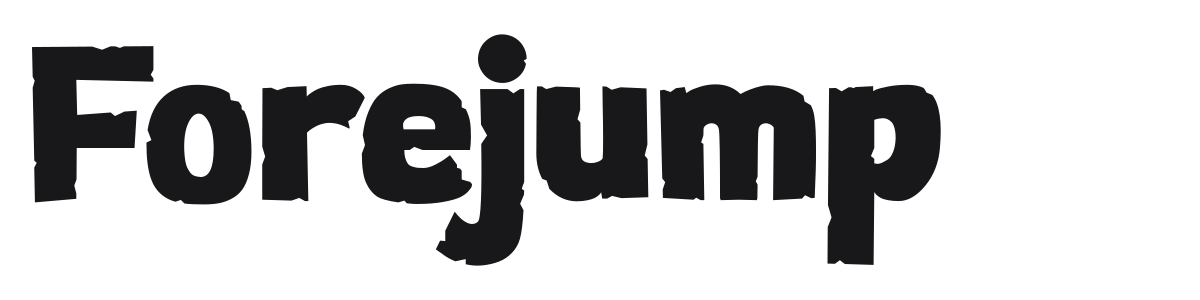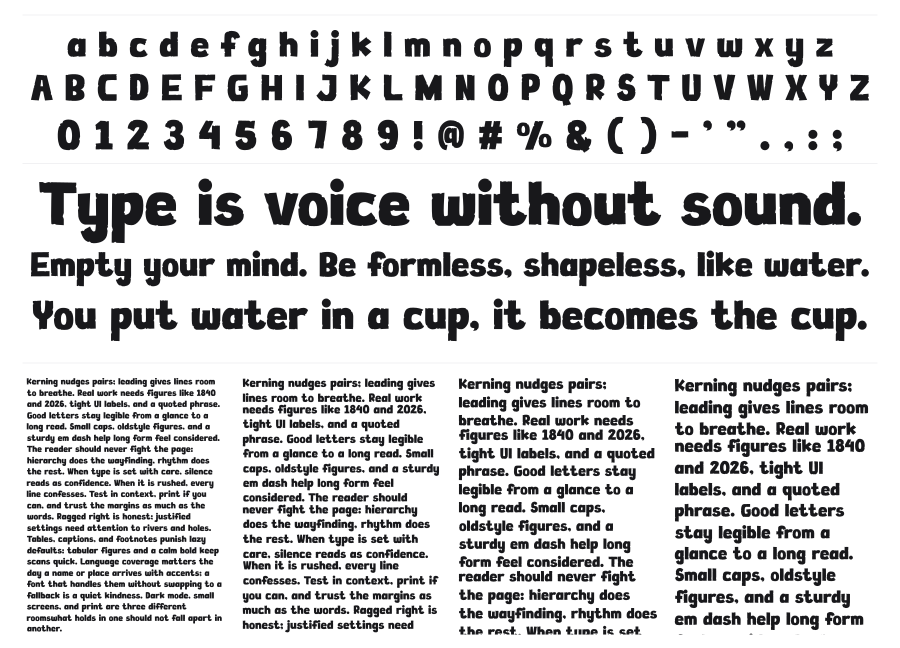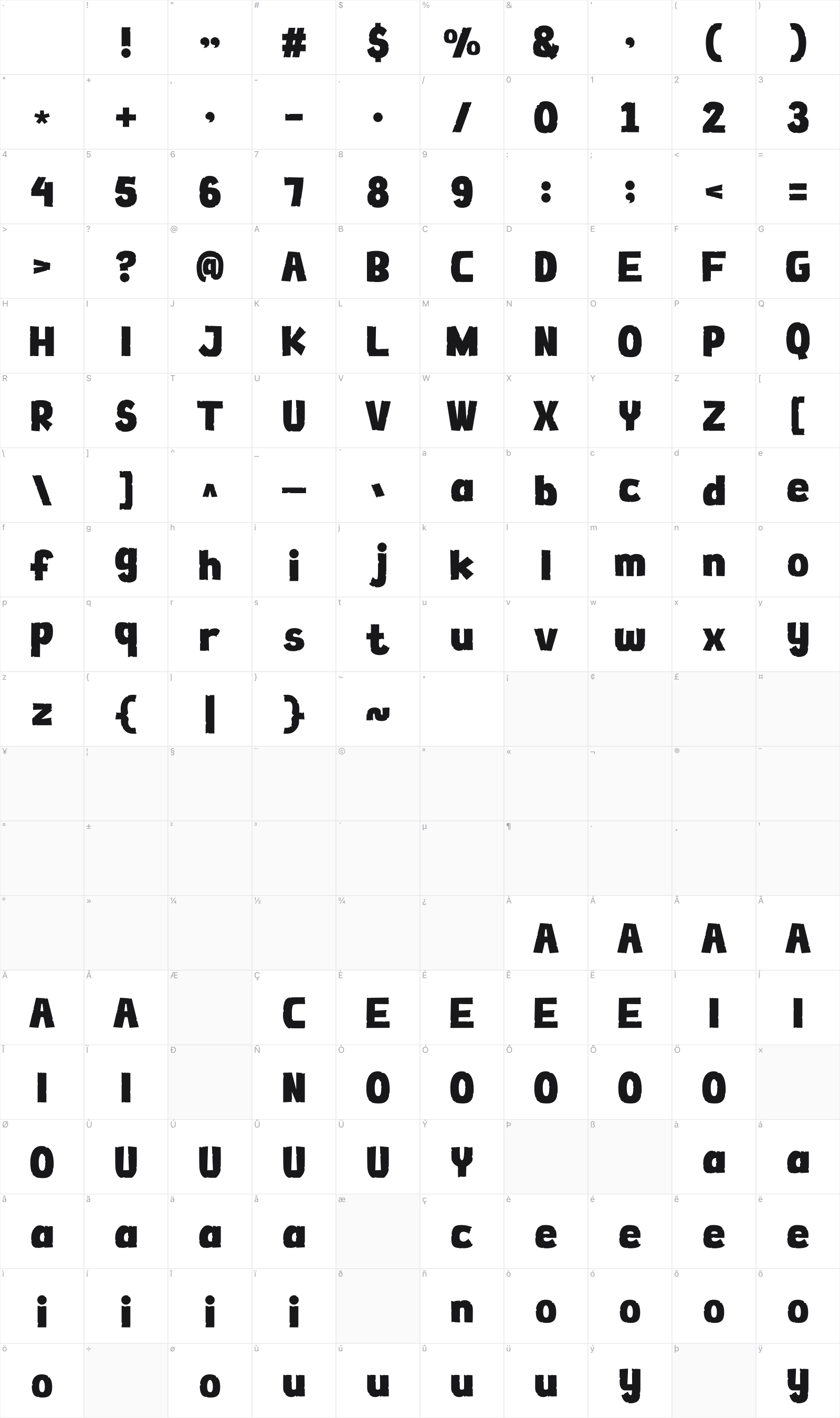
Forejump
Forejump is a heavy display font with thick, rounded strokes and a rough, distressed texture that makes each character look hand-inked and worn. The squat proportions and eroded edges give it a street-craft energy, somewhere between a bold grotesque and a hand-stamped sign. Works hard at large sizes for posters, packaging, and anywhere that needs personality with weight.